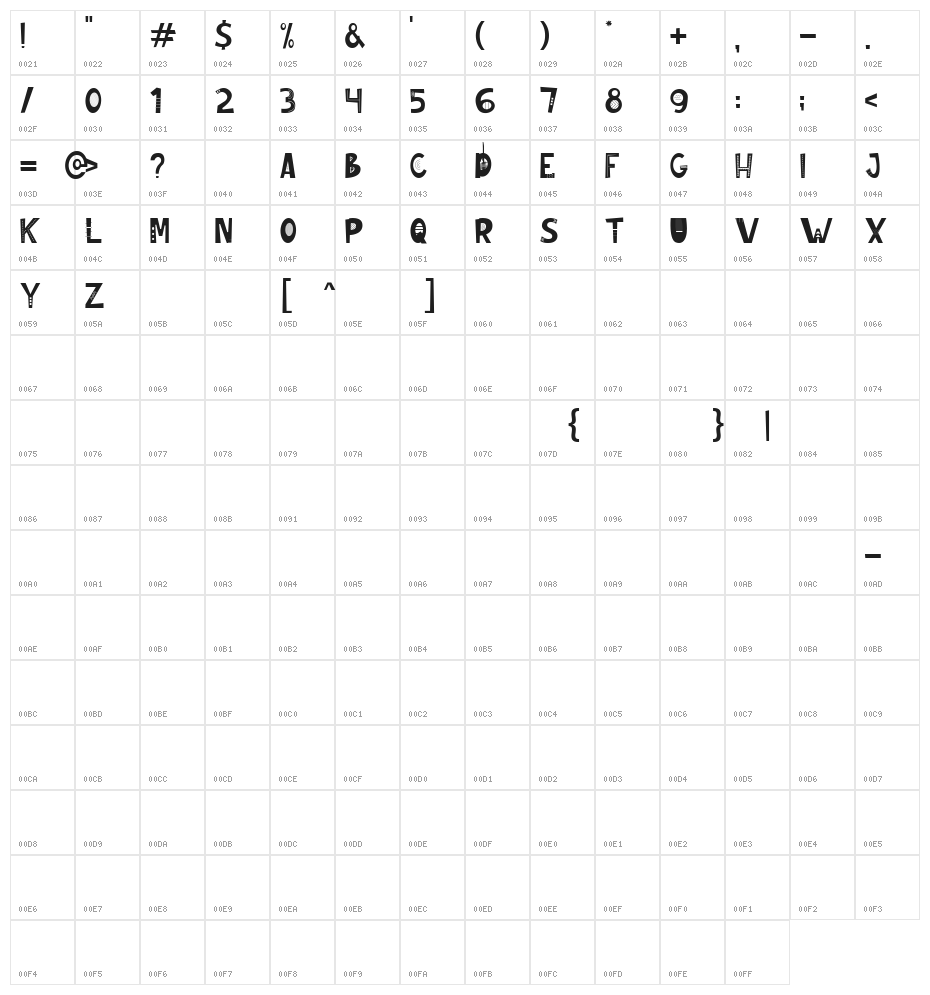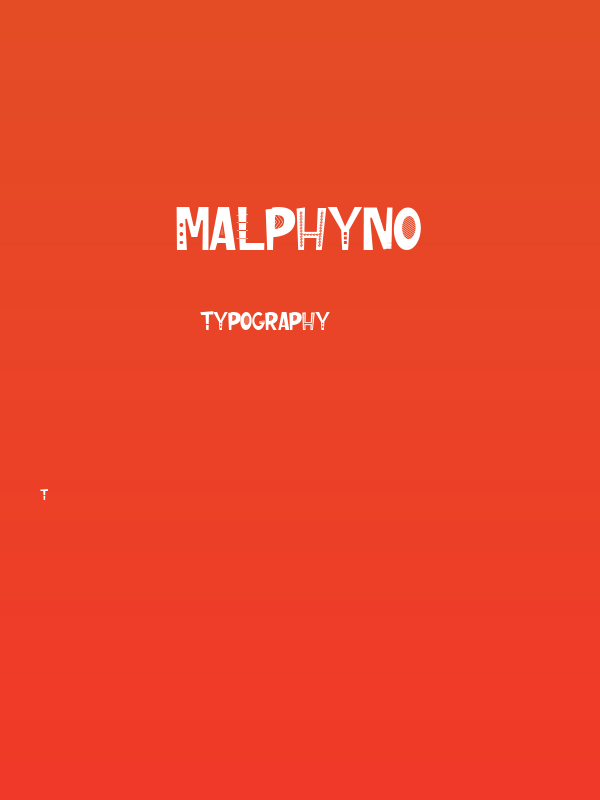
MALPHYNO Font
MALPHYNO Description
This font is a playful and eclectic display typeface, characterized by its bold and quirky design. Each letter is uniquely styled with various patterns and shapes, giving it a dynamic and artistic feel. The uppercase letters feature a mix of geometric and abstract elements, while the numbers and special characters continue this theme with distinctive embellishments. The font's boldness and creativity make it stand out, perfect for projects that require a fun and eye-catching aesthetic.
Proposed ProjectsIdeal for children's books, posters, creative branding, and event invitations.